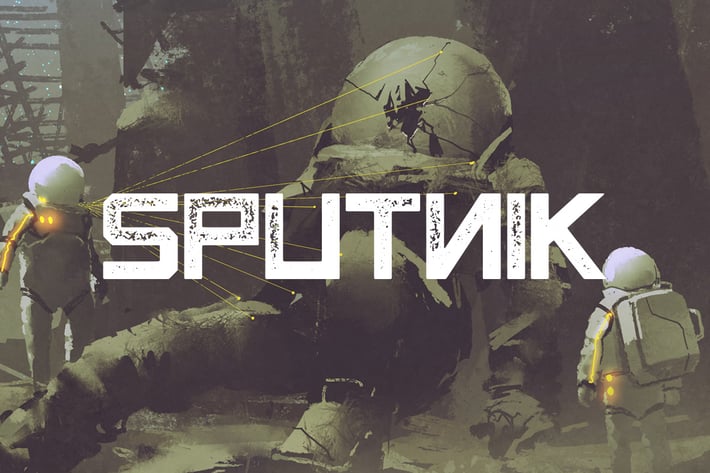
Sputnik Typeface
MehmetRehaTugcu
Sputnik is a font inspired by vintage proganda posters, especially ones originating from the USSR. It includes uppercase English letters, some of which have alternates, numbers and simple punctuation.
The type comes in 4 different font styles. They look particularly good in red!